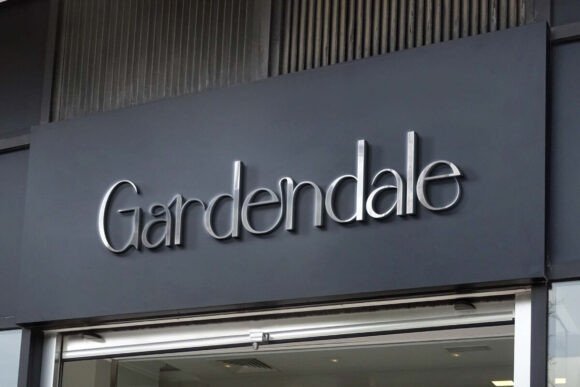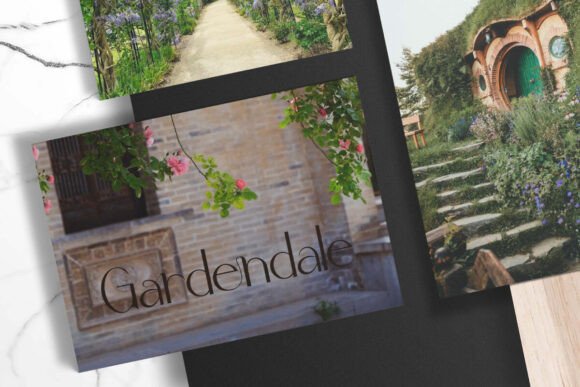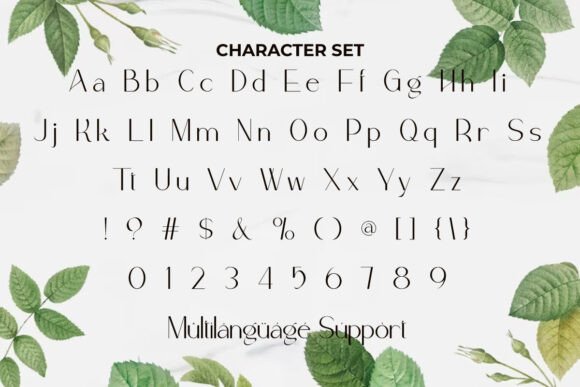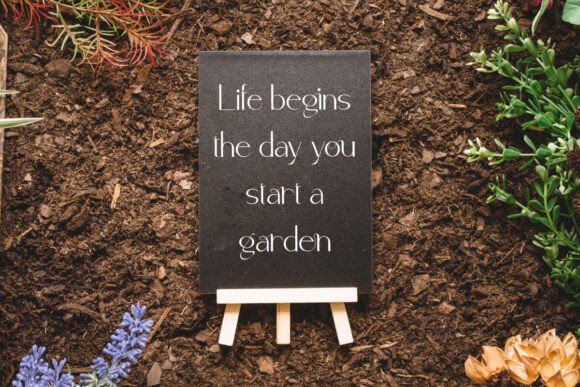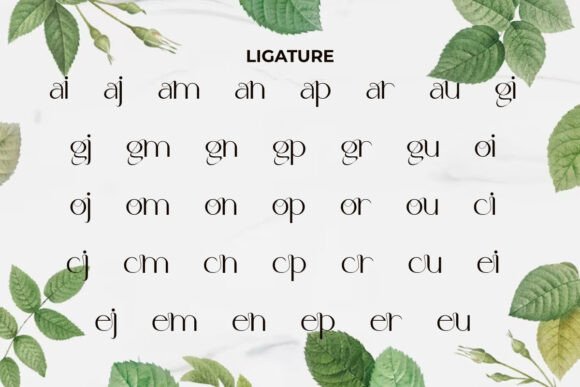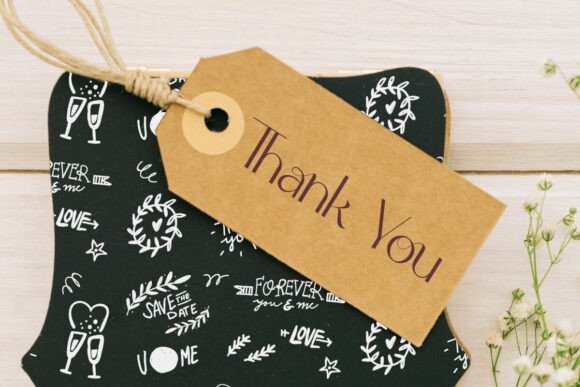
Gardendale Font: Elevate Your Designs with Modern Sophistication
In the world of typography, a font can make or break a design. For designers and crafters looking to add a touch of modern sophistication to their work, the Gardendale Font is an excellent choice. This stunning sans serif display font is designed to bring elegance, femininity, and timelessness to a wide range of designs.
What is Gardendale Font?
Gardendale is a modern, stylish sans serif display font that boasts beautiful looks and versatility. Its clean lines, subtle curves, and balanced proportions make it perfect for designs that require a touch of sophistication. Whether you’re working on a brand image, custom design, invitation, label, menu, poster, product packaging, quote, signage, stationery, or web design, Gardendale Font is an excellent choice.
Key Features of Gardendale Font
• Elegant and Feminine: Gardendale Font features a delicate and refined design that adds a touch of femininity to any project.
• Modern and Timeless: The font’s clean lines and classic proportions ensure that it remains modern and timeless, even in the ever-changing world of design.
• Versatile: Gardendale Font can be used in a wide range of designs, from branding and advertising to packaging and digital media.
• High-Quality: The font is designed with high-quality craftsmanship, ensuring that it looks great in any size or application.
How to Use Gardendale Font
Gardendale Font can be used in a variety of design projects, including:
• Branding: Use Gardendale Font to create a sophisticated brand image that stands out from the competition.
• Invitations: Add a touch of elegance to your invitations with Gardendale Font.
• Packaging: Use Gardendale Font to create eye-catching product packaging that showcases your brand’s personality.
• Digital Media: Gardendale Font is perfect for web designs, social media graphics, and other digital media projects.
Benefits of Using Gardendale Font
By using Gardendale Font in your designs, you can:
• Elevate Your Brand: Add a touch of sophistication and elegance to your brand image.
• Stand Out: Use Gardendale Font to create designs that stand out from the competition.
• Save Time: With its versatility and high-quality design, Gardendale Font can save you time and effort in your design projects.
Tips for Pairing Gardendale Font with Other Fonts
To get the most out of Gardendale Font, consider pairing it with other fonts that complement its style. Here are some tips:
• Pair with Serif Fonts: Pair Gardendale Font with serif fonts for a classic and elegant look.
• Pair with Script Fonts: Combine Gardendale Font with script fonts for a romantic and whimsical touch.
• Experiment with Font Sizes: Play with different font sizes to create visual interest and hierarchy in your designs.
Gardendale Font is a stunning modern sans serif display font that can elevate your designs with its elegant, feminine, and timeless style. With its versatility, high-quality design, and wide range of applications, Gardendale Font is an excellent choice for designers and crafters looking to add a touch of sophistication to their work. Whether you’re working on a brand image, custom design, invitation, label, menu, poster, product packaging, quote, signage, stationery, or web design, Gardendale Font is sure to impress.